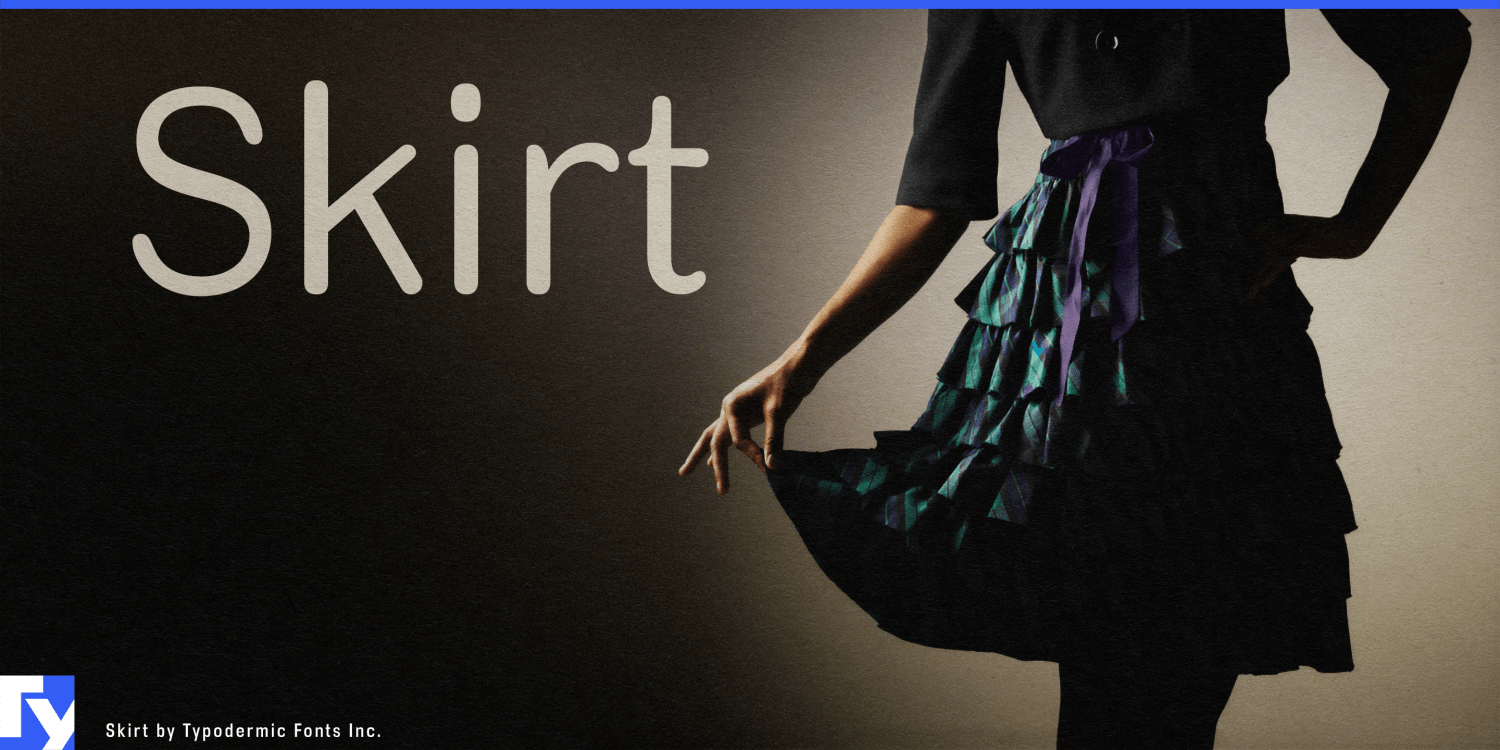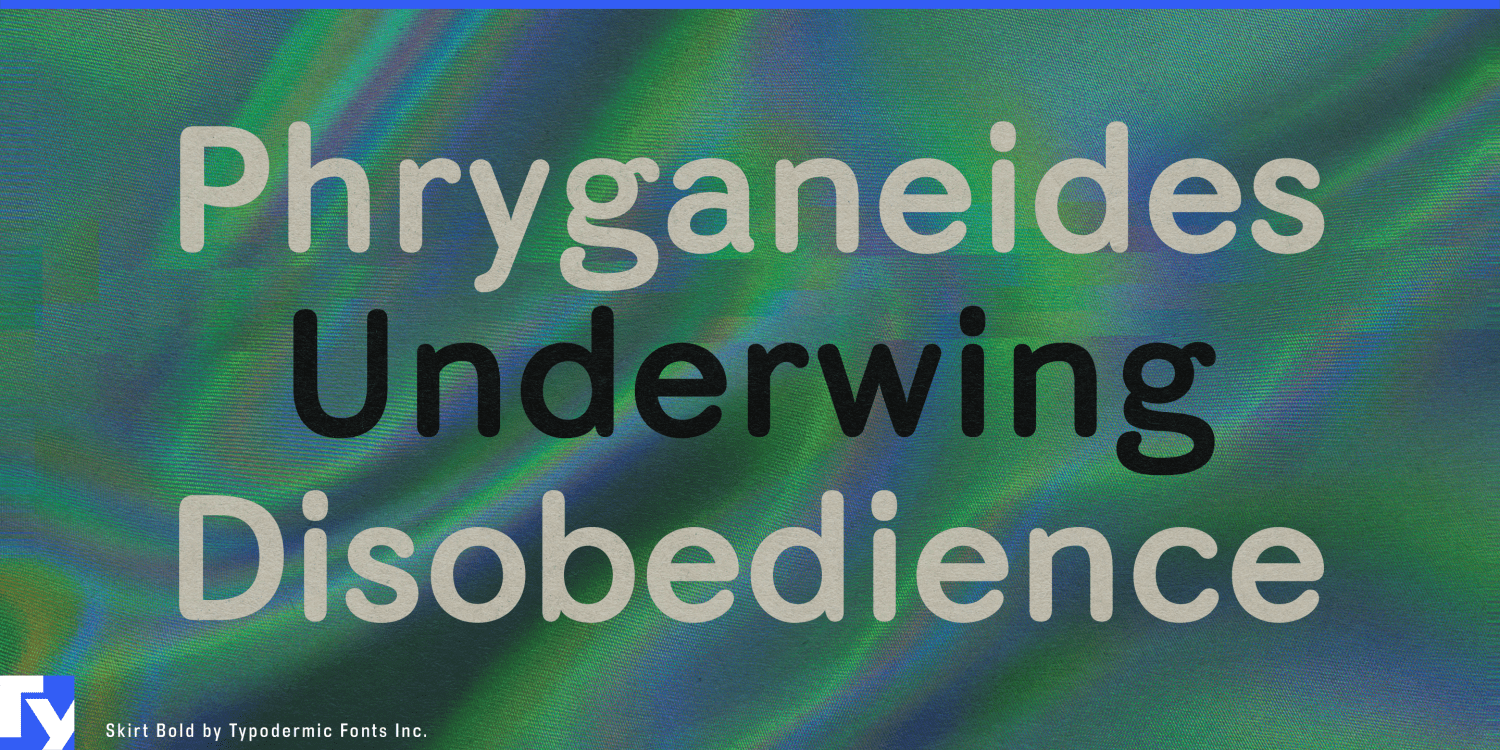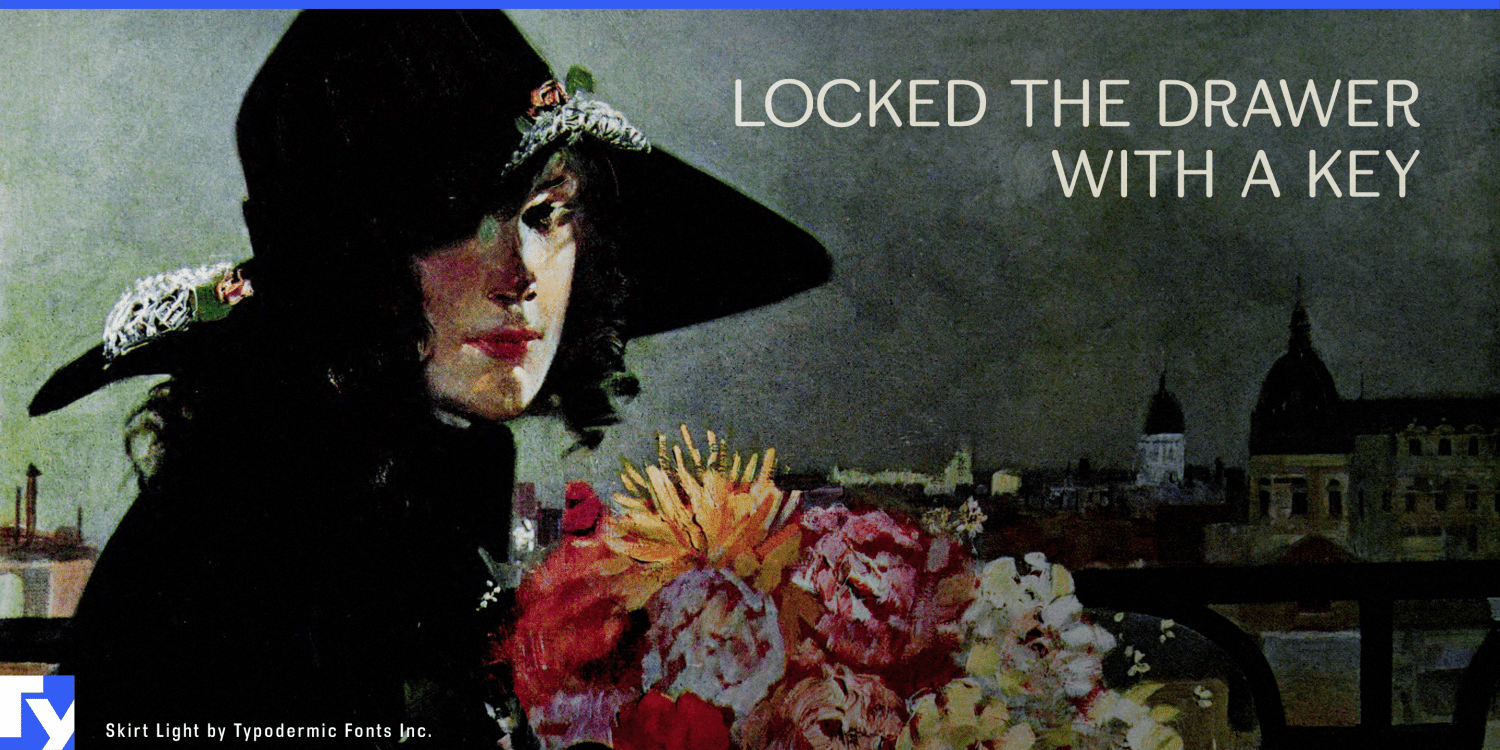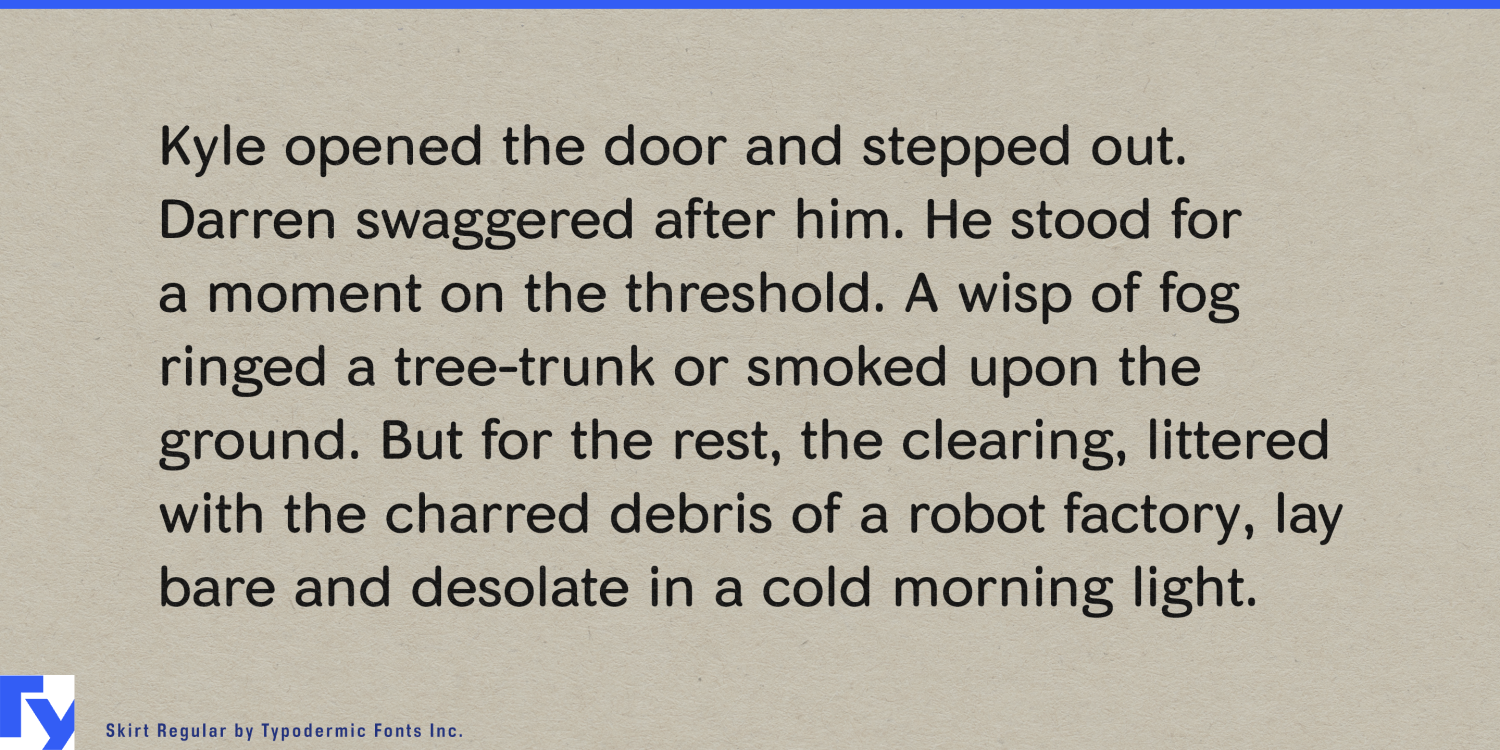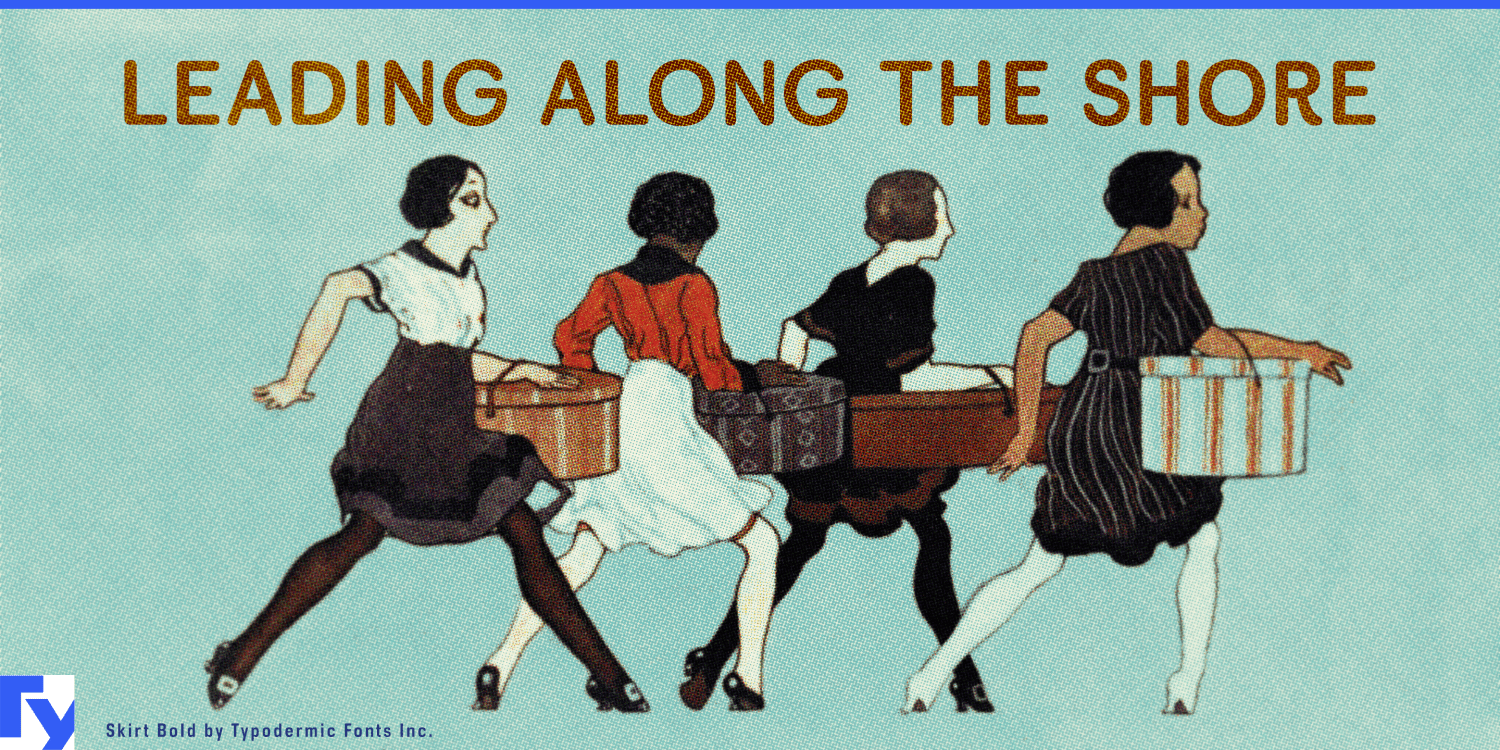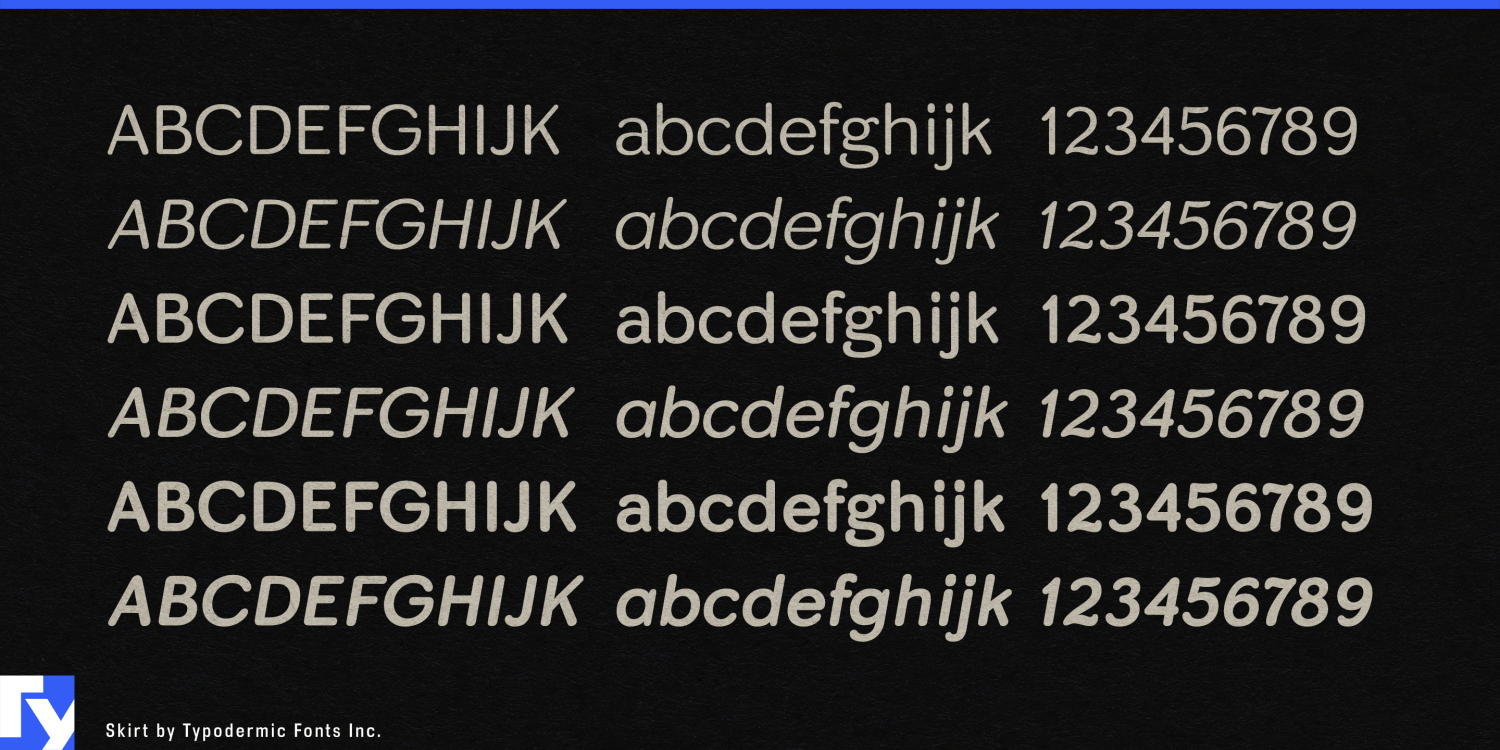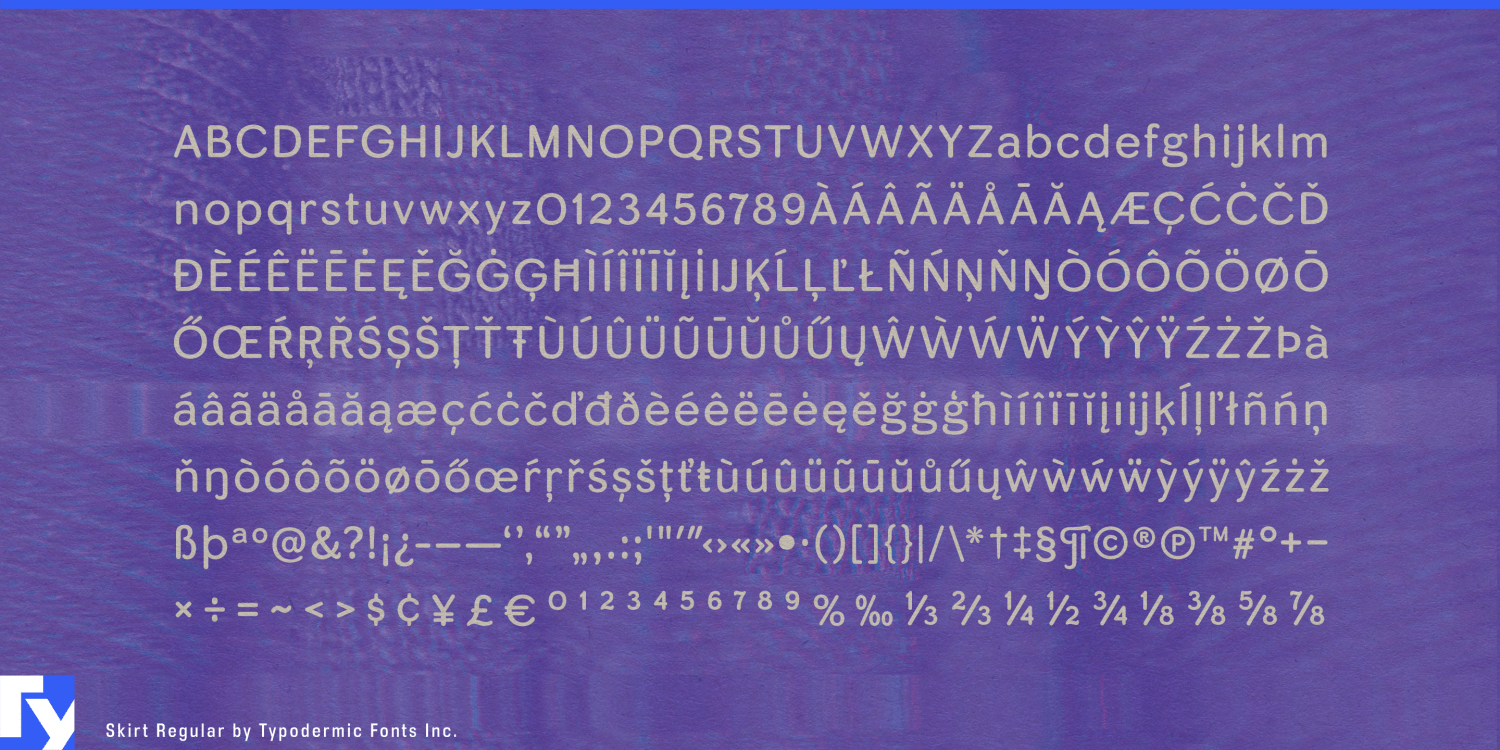
Skirt
Font Family by Typodermic
Prepare to be charmed by Skirt, a rounded sans-serif typeface that doesn’t just communicate—it dances across the page with effortless grace. This is a celebration of form, a typographic pirouette that brings a touch of playful sophistication to every project it graces.
Skirt’s fluid forms are a masterclass in balancing whimsy with refinement. Each character is a carefully choreographed blend of soft curves and confident strokes, creating a visual rhythm that’s as captivating as it is readable. The rounded ends of each letter add a gentle touch, inviting the eye to linger and explore the nuances of your message. But don’t let Skirt’s playful demeanor fool you—this typeface means business. With three meticulously crafted weights and accompanying italics, Skirt adapts effortlessly to a wide range of design challenges. From the delicate lines of its lighter weight, perfect for elegant body text, to the bold statements of its heavier iterations, Skirt offers a full spectrum of expressive possibilities.
In the world of fashion editorials, Skirt struts its stuff with unmatched flair. It’s the typographic equivalent of a couture gown—unique, eye-catching, and impossibly chic. For high-end branding, it adds a touch of approachable luxury, creating an instant connection with audiences while maintaining an air of exclusivity. Skirt’s linguistic versatility is equally impressive. Supporting a vast array of Latin-based European writing systems, from Afaan Oromo to Zuni, this typeface ensures your message retains its stylish charm across cultures. It’s not just crossing language barriers—it’s sashaying through them with the confidence of a runway model.
Choose Skirt when you want your typography to do more than inform—when you want it to enchant, to delight, to add a spark of joy to every word. It’s not just a font; it’s a mood-lifter, a smile-inducer, a guaranteed double-take generator. Whether you’re crafting a brand identity for a boutique label or designing a magazine spread that demands attention, Skirt is ready to elevate your project from ordinary to extraordinary.
In a world where first impressions matter, Skirt ensures your message doesn’t just speak—it makes a grand entrance. With Skirt, every project becomes a typographic soirée, and every word is dressed to impress. Are you ready to give your designs a twirl?